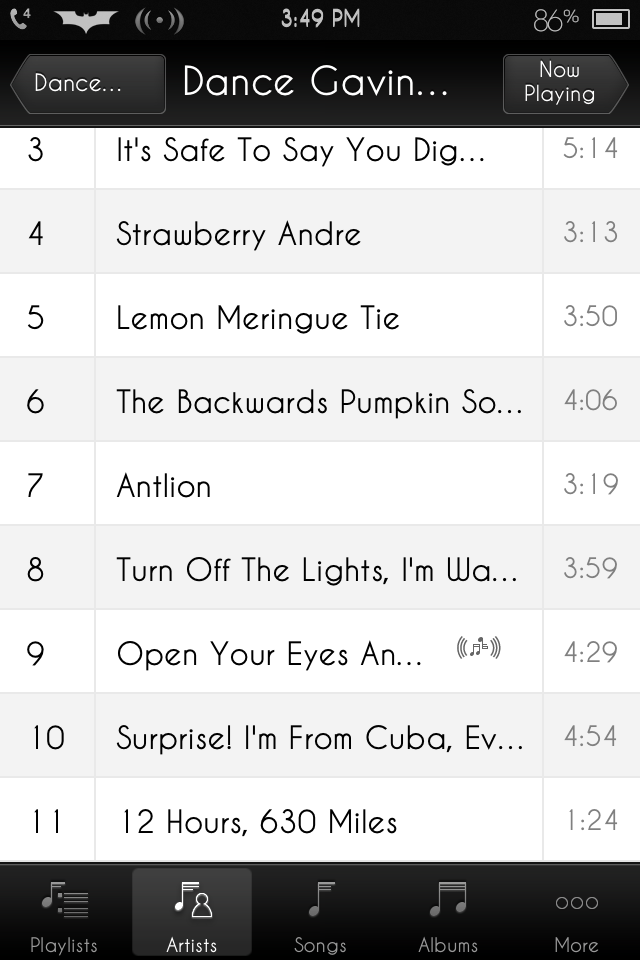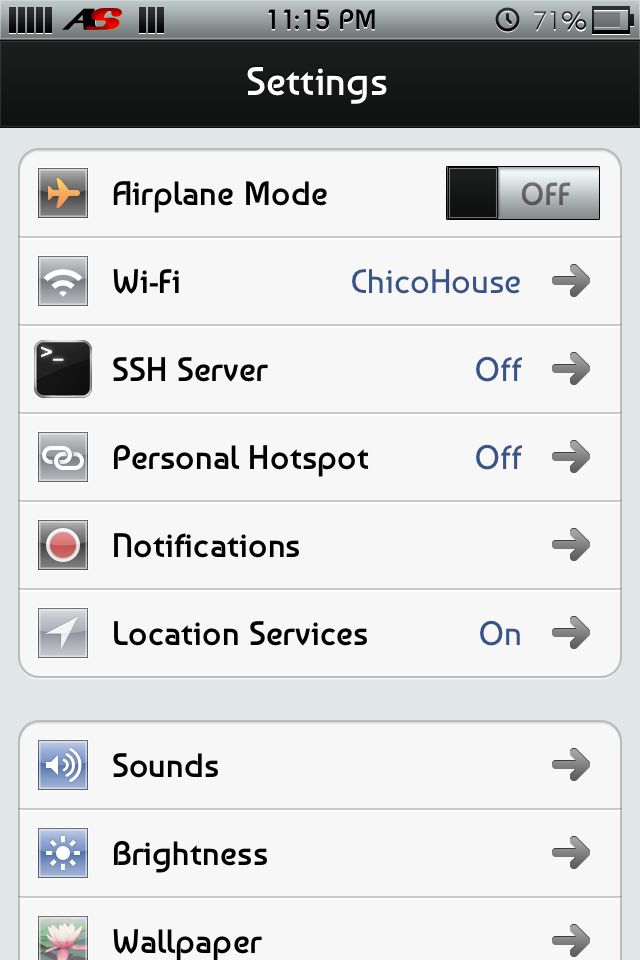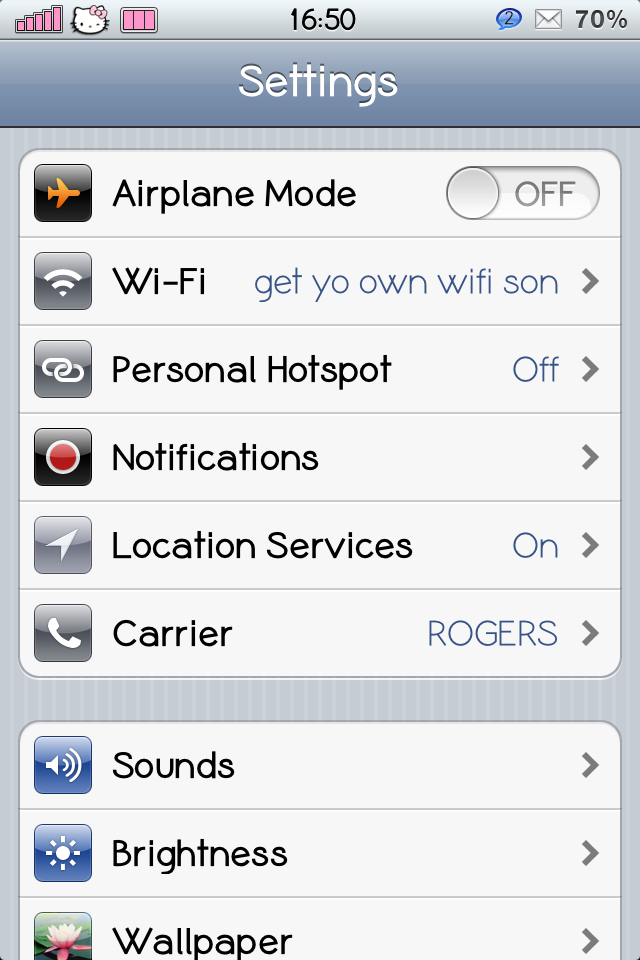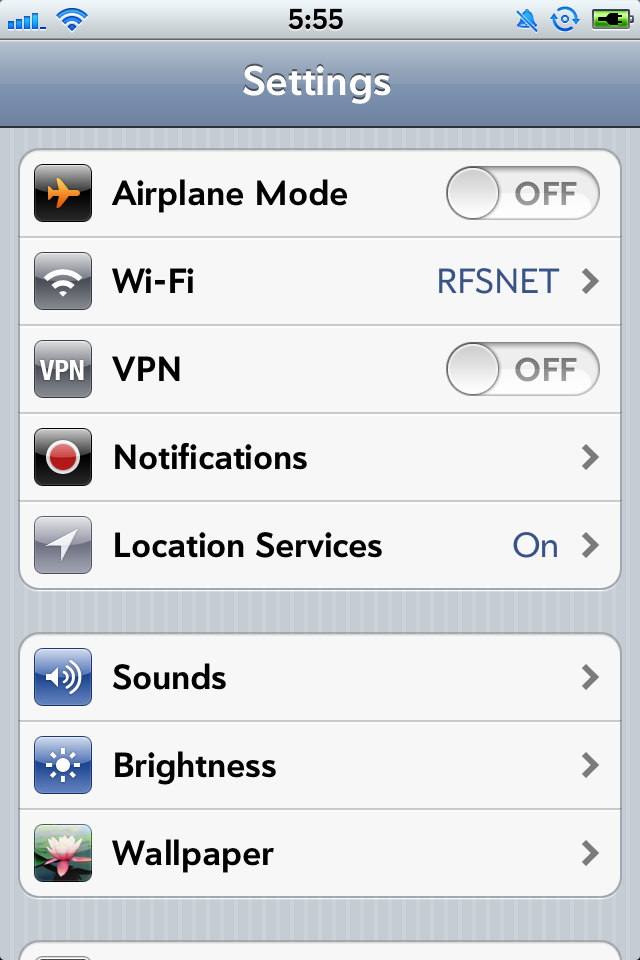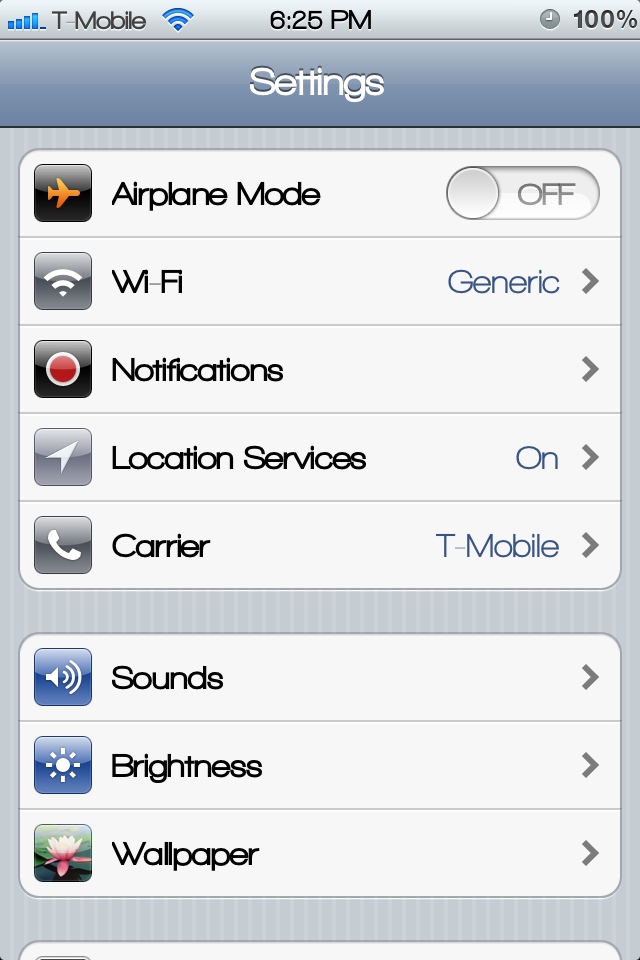
ok that's fine I accept the brain fart comment and aplogize for my one tjread compared to all the can i jailbreak or unlock my iphone or the error 1600 threads. Also I think I bricked my phone s. Yes Hick Head I'm not perfect. So far I like Wicked the best tried most of them.
BTW, I couldn't find any font named "wicked." Care to post a screenie?
I'm using Ubuntu Titling (thanks to BumpyFlatLine for mentioning it in this thread https://forums.macrumors.com/threads/1389949/ )
Anyhow I'm using a font called Sony Sketch EF Regular. I like it because it's cool/futuristic looking and not an eye-sore like many other unique fonts.
I was previously using Prelude.
I'm trying out Avenir Light now. Prelude and Avenir seem to have very similar styles.
Where did you get Prelude ? I can't find it.